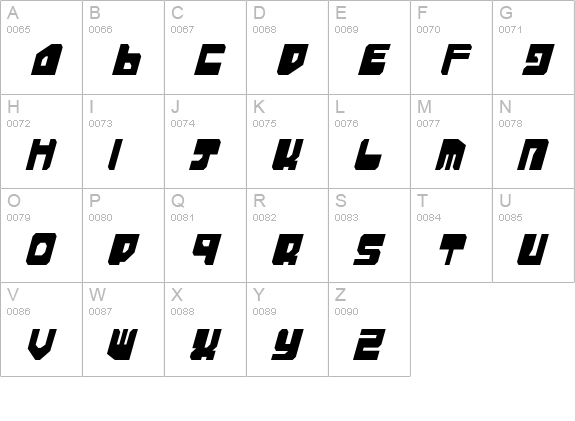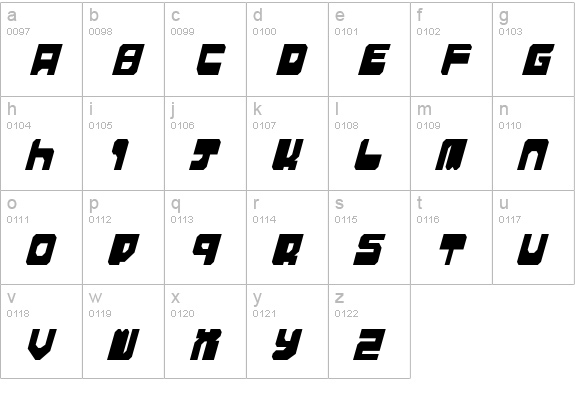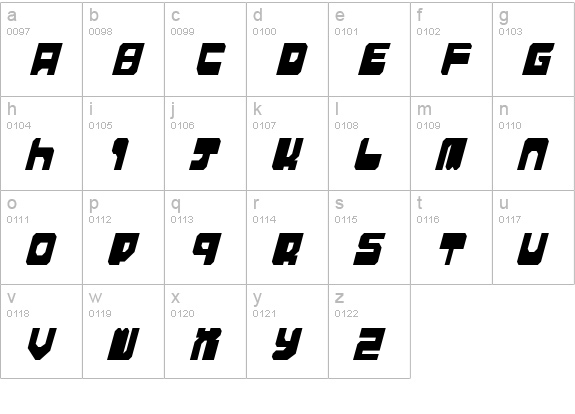
Extechchop Condensed Font Details
Extechchop Condensed is a distinctive, condensed-width variant in the Extechchop typeface family \xE2\x80\x94 well suited to design and typography projects.
Extechchop Condensed font is a sleek and modern typeface that exudes sophistication and style. Its condensed design makes it perfect for headlines, titles, and branding projects that require a strong and impactful look. With its clean lines and sharp edges, Extechchop Condensed font adds a touch of elegance to any design. The best part? Extechchop Condensed font is available for free download at FontsMarket.com, making it accessible to designers and creatives looking to elevate their projects without breaking the bank. Don't miss out on the opportunity to add this versatile and eye-catching font to your collection today!